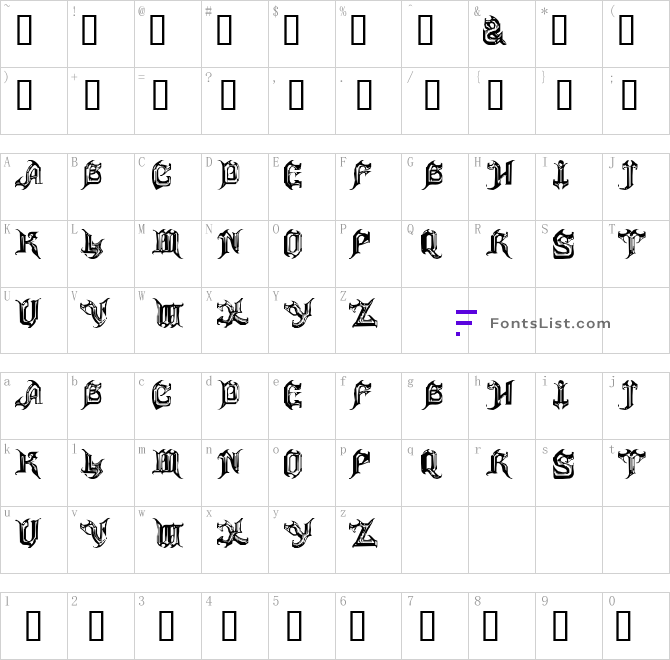
- Font Name:ANVIL
ANVIL.ttf is a very beautiful artistic font, ANVIL.ttf is widely used in the design and printing of various books and pictures,ANVIL.ttf has a strong visual impact,ANVIL.ttf is a commonly used font in newspapers, magazines and books, and is used in posters, e-commerce Poster design, store design, logo design, font design and other fields.ANVIL.